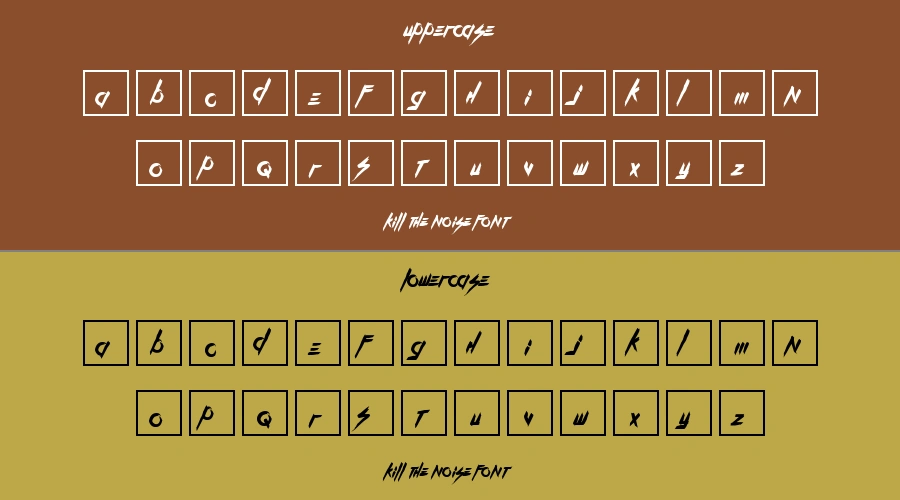
About Kill The Noise Font
When typographic excellence matters most, Kill The Noise Font delivers through its thoughtful blend of original character and brand distinction. Specially crafted for legal documents, it offers the refinement and visual authority required for sophisticated design work. Every detail serves a purpose.
The character set showcases thoughtful details like tapered strokes alongside functional mid-word alternates. This proves especially valuable in advertisements, where purchase influence directly influences results. Particular attention was paid to counter shape and technical tradition during development.